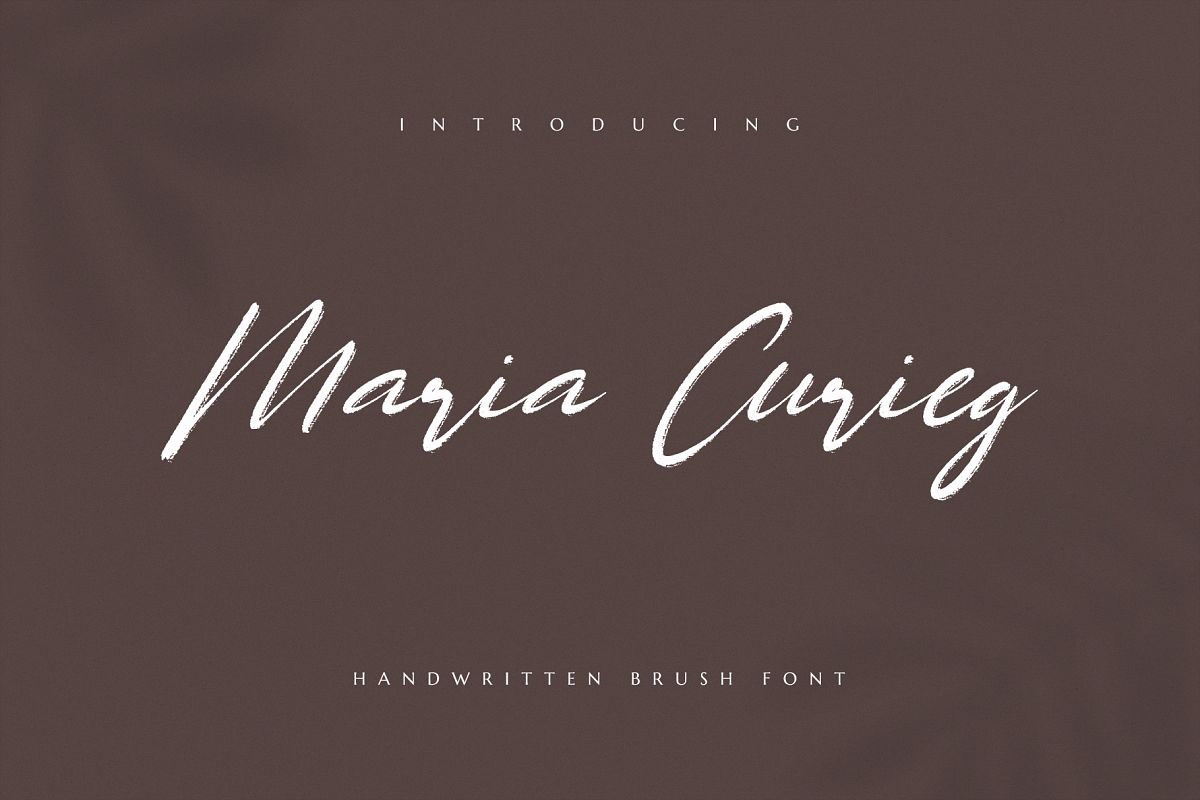
Maria Curieg Handwritten Brush Font
Introducing Maria Curieg - Handwritten Brush FontMaria Curieg is a natural handwritten brush font, this font Is perfect for logo, invitation, stationery, wedding designs, social media posts, advertisements, product packaging, product designs, label, photography, watermark, special events or anything.